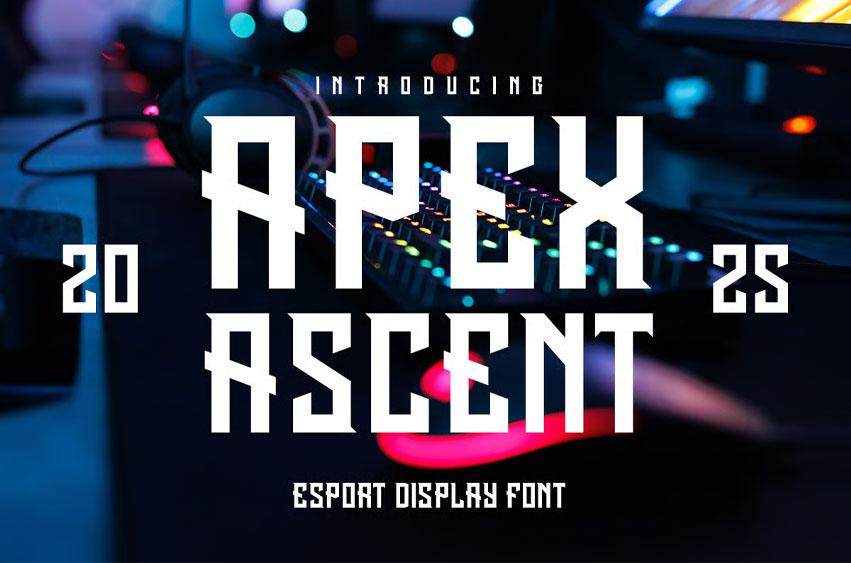
Apex Ascent Font
Apex Ascent Font is a powerful and dynamic display font meticulously crafted for the high-energy world of esports and gaming. With its sharp angles, clean lines, and futuristic appeal, this font is designed to make a bold statement, perfect for projects that demand maximum visual impact and a competitive edge.
• Modern & Aggressive Design: Each character is precisely engineered to convey a sense of speed, strength, and innovation, making it ideal for team logos, game titles, streaming overlays, and branding.
• Optimal Readability: Despite its strong stylistic presence, Apex Ascend maintains excellent legibility, ensuring your message is clear and impactful, even at smaller sizes or in fast-paced visual environments.
• Versatile Application: This font is highly adaptable for a wide range of design needs, from tournament posters and social media banners to merchandise and in-game UI elements.
• All-Caps & Numerals: Includes a complete set of uppercase letters and numerals, providing all the essential characters for powerful headlines and branding.
• Multilingual Support: Supports a wide range of Latin-based languages, ensuring global appeal.
• Esports & Gaming Logos: Create iconic and memorable logos for teams, events, and channels.
• Game Titles & Headlines: Grab attention with striking typography for game covers, trailers, and in-game text.
• Streaming & Content Creation: Enhance Twitch overlays, YouTube thumbnails, and social media graphics.
• Promotional Materials: Craft dynamic posters, flyers, and advertisements for gaming events.
Apex Ascend is more than just a font; it’s a statement. Elevate your esports and gaming projects to the next level with its unparalleled energy and modern aesthetic.